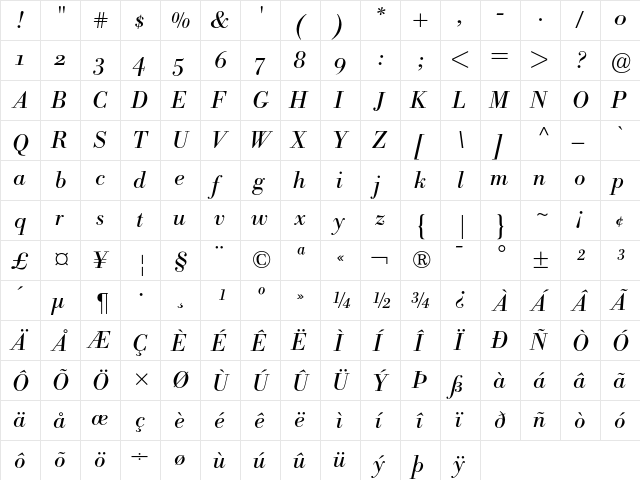
Bodoni BE Italic Oldstyle Figures
Design Context for Bodoni BE Typeface
Bodoni BE carries the refined structure of traditional serif typography, with bracketed terminals and considered proportions that communicate credibility and craft. The dynamic lean of this cut emphasises speed and emphasis in any layout.
Pro Tip: Use Bodoni BE for editorial body copy and considered headline work. Pair with a neutral sans for UI elements or captions to create a classic hierarchy.